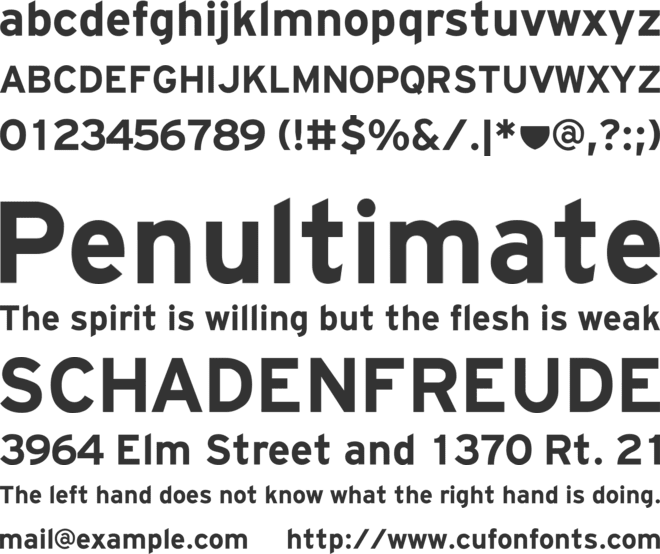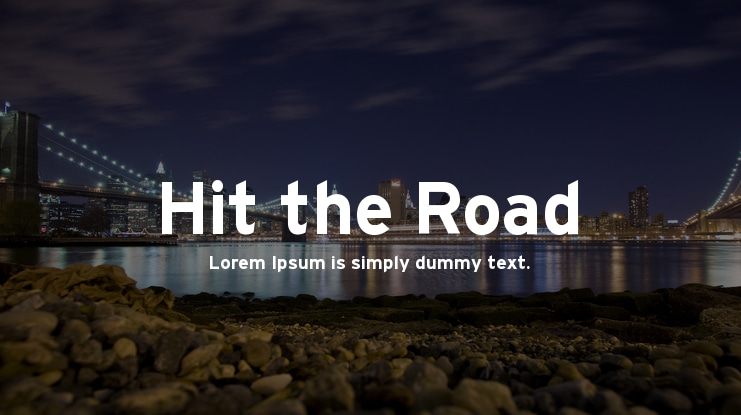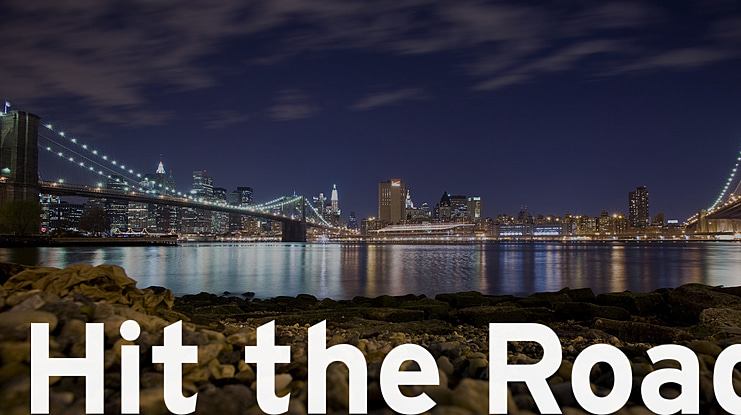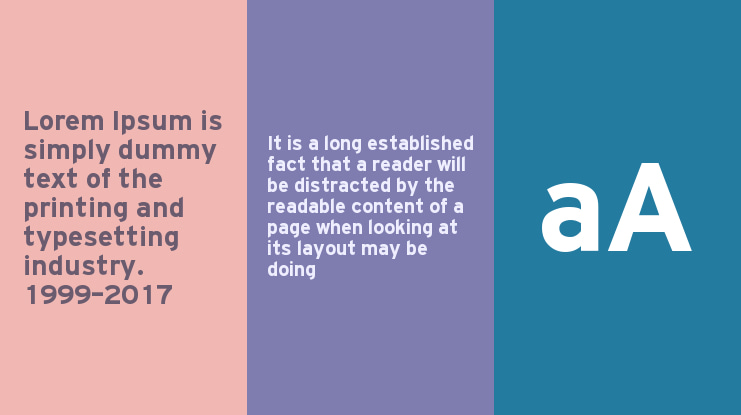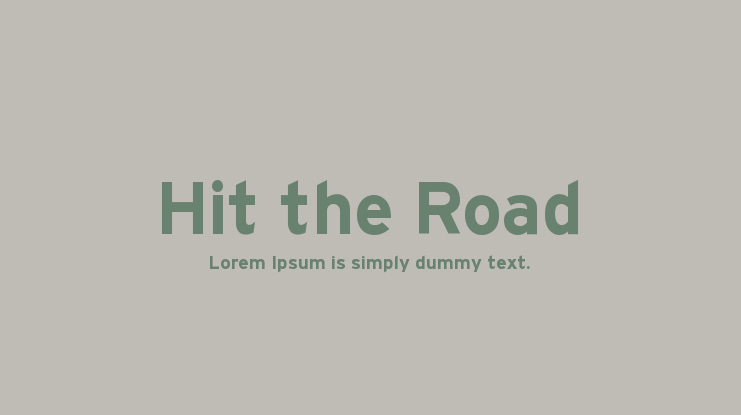
Hit the Road Font
This font is based on the lettering on the signs of our nation's Interstate
Highway System. Well, my nation's anyway. Unless you also live in the United
States, in which case, yes, our nation's.